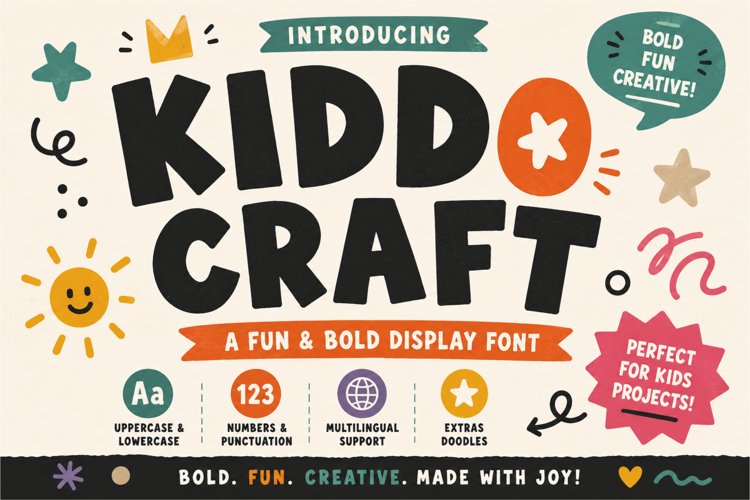
Kiddo Craft | Fun & Bold Display Font
Say hello to Kiddo Craft, a fun and bold display font designed to spark creativity and bring smiles to every project. Featuring chunky handcrafted letterforms, playful proportions, and charming doodle extras, this font is perfect for creating colorful, energetic, and memorable designs.
Whether you're designing for children's brands, educational materials, product packaging, party invitations, or playful social media graphics, Kiddo Craft delivers a friendly personality that instantly captures attention.
With its bold style and handcrafted feel, Kiddo Craft is made for designers who want typography that's full of joy, creativity, and imagination.
Why You'll Love Kiddo Craft- Bold and playful display font
- Handcrafted character with a fun personality
- Includes cute doodle extras
- Clean and easy-to-read letterforms
- Perfect for colorful branding and creative projects
- Great for both print and digital designs
- Multilingual support
Perfect For
- Kids Branding
- Toy Packaging
- Children's Books
- Educational Materials
- School Projects
- Posters & Flyers
- Logo Design
- Product Packaging
- Party Invitations
- Greeting Cards
- Social Media Graphics
- YouTube Thumbnails
- Classroom Decorations
- Craft Projects
- Printable Designs
Font Features
- Uppercase & Lowercase Letters
- Numbers & Punctuation
- Extras Doodles
Kiddo Craft is the perfect display font for designers who want to create bright, playful, and unforgettable designs. From children's products to creative branding, this font brings bold energy and joyful character to every headline.
Let your creativity shine with Kiddo Craft!